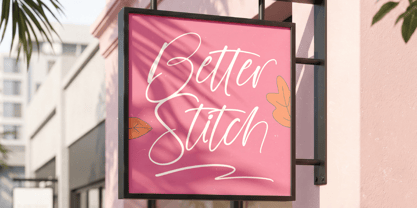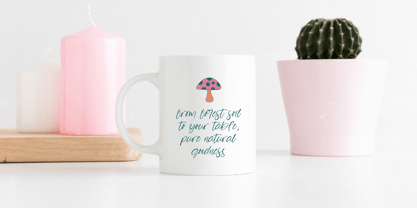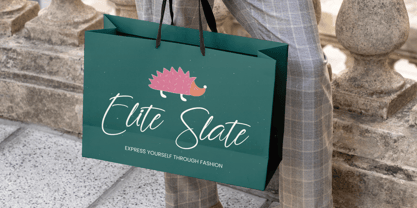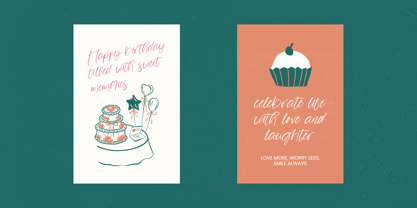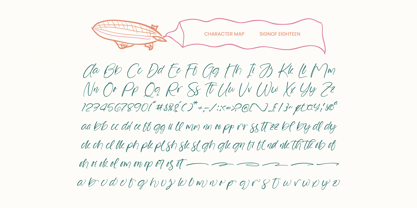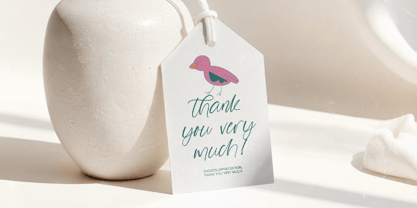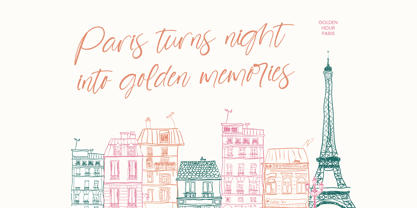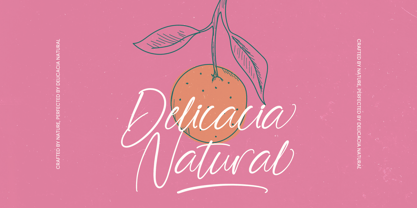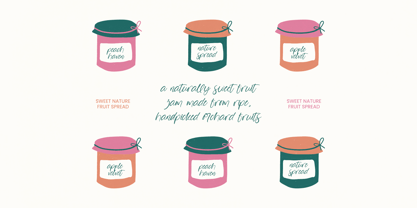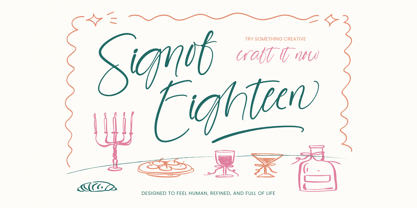
Signof Eighteen
The Signof Eighteen Font Family was designed by Heru Utama Putra and published by Stylishtype Studio. Signof Eighteen contains 2 styles and family package options. More about this family
• Signof Eighteen Regular
• Signof Eighteen Italic
Elevate your creative projects with a touch of authentic charm. Signof Eighteen - Cute Handwritten is a masterclass in organic script design, blending effortless flow with a modern, playful aesthetic. Its fluid strokes and natural letterforms evoke a sense of personal connection and warmth, making it the perfect choice for designers looking to infuse their work with hand-crafted elegance and a professional finish.